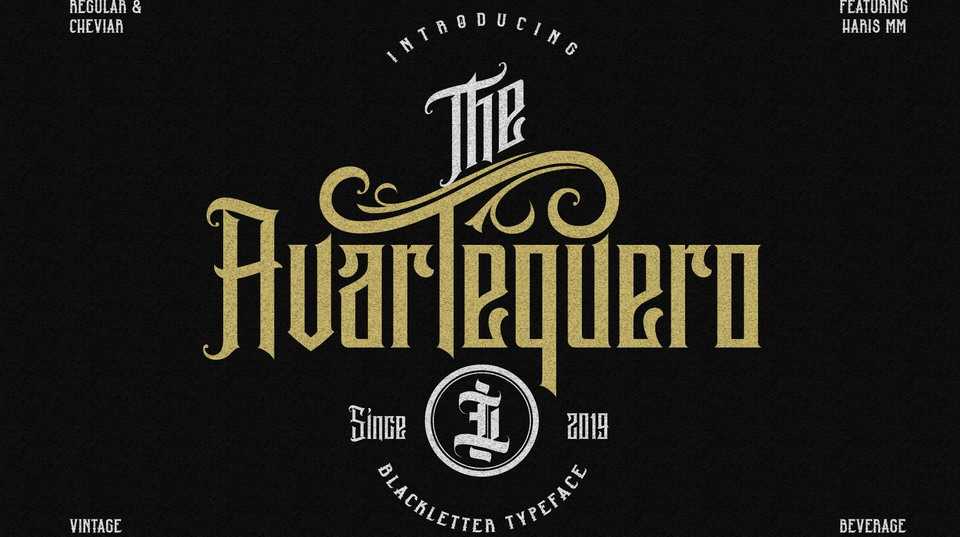
Download Avartequero font, a typeface with a new blackletter style. With vintage style Avartequero is very suitable as to make a design choice for Vintage Beverage Labels, Tattoo Logo, Barbershop Logo, Music Events, Badges, Clothing and many more.